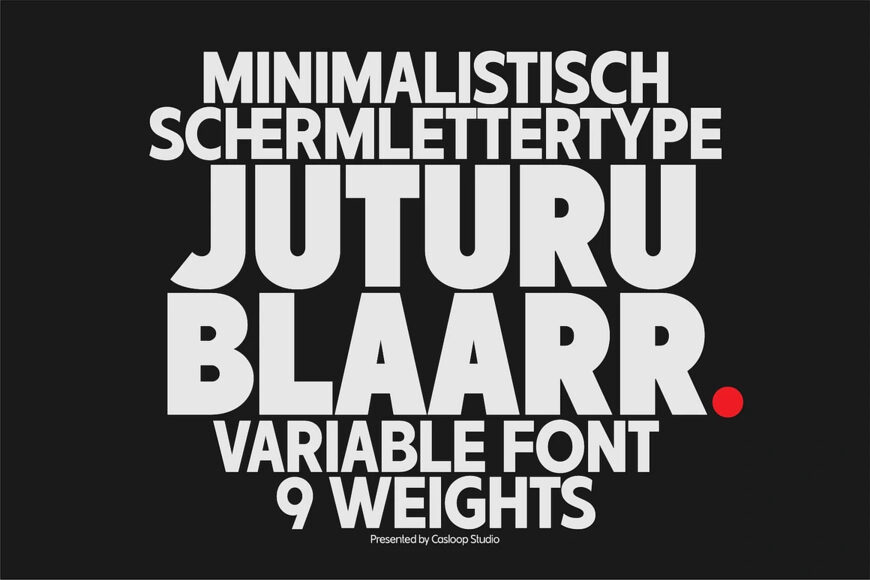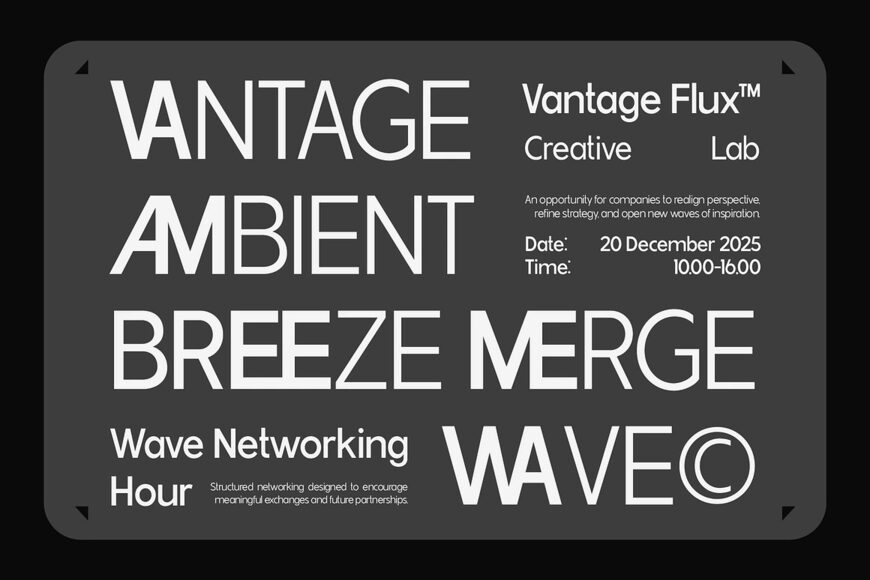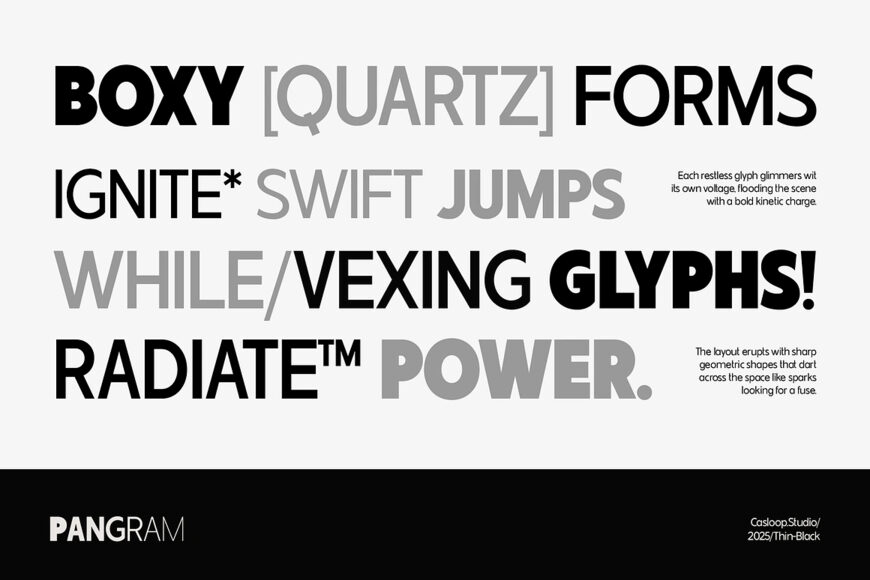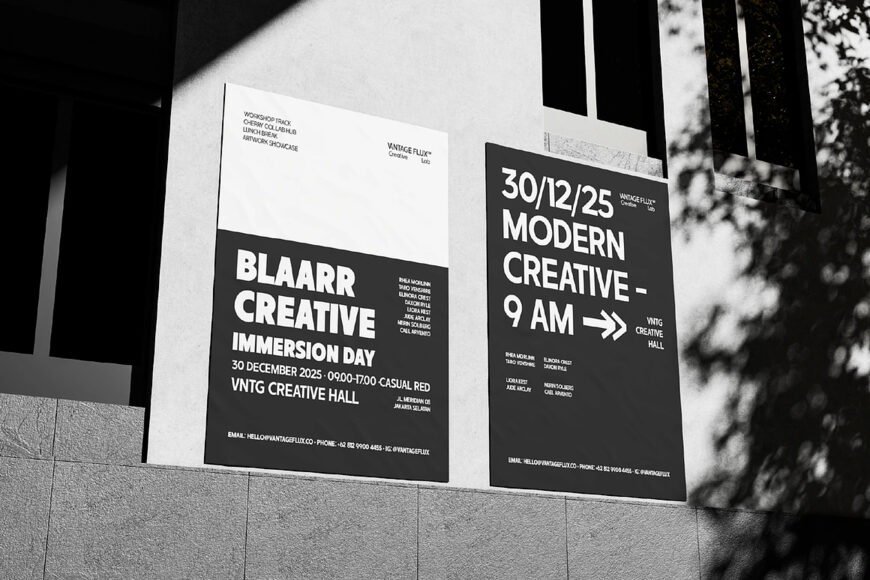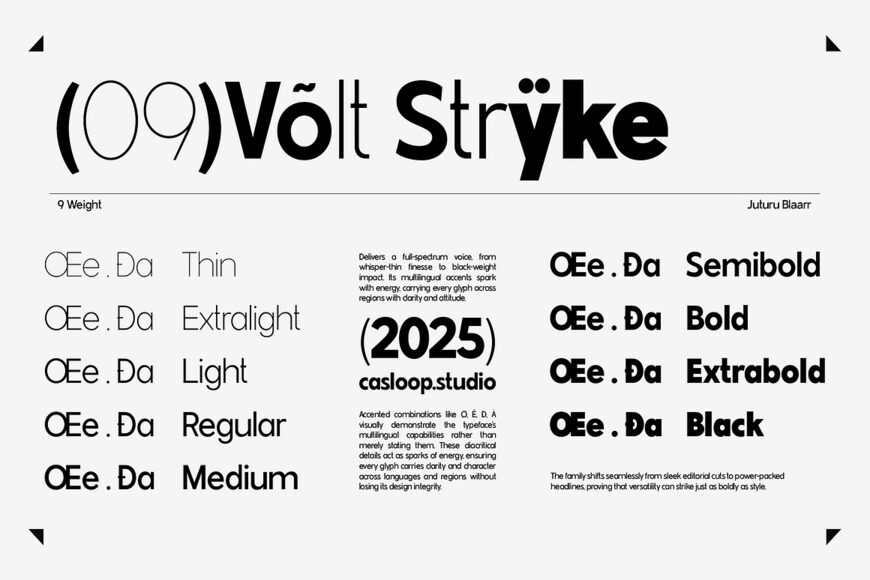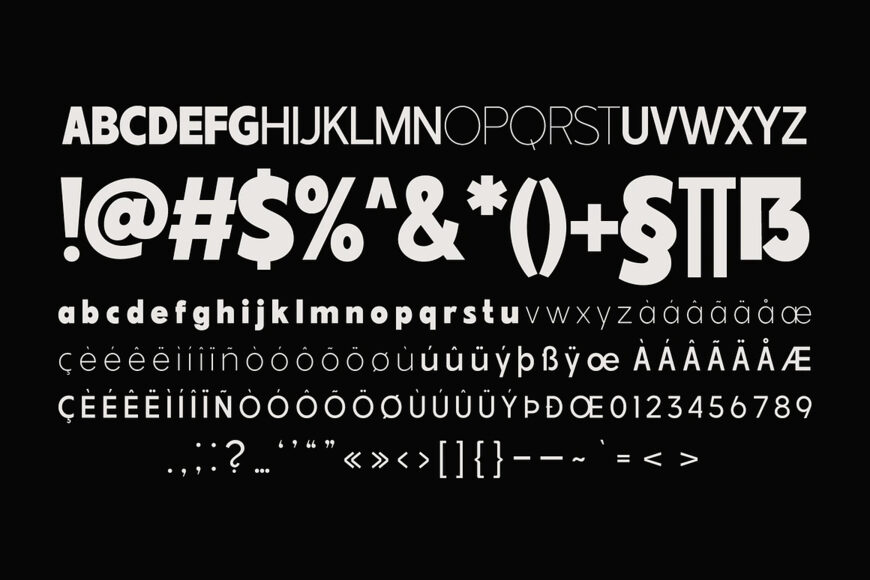
Juturu Blaarr is a minimalist sans serif typeface designed for modern logos and visual systems that value clarity, structure and confidence. With balanced proportions and a disciplined shape, its performance is consistent across scales.
Juturu Blaarr is designed to avoid the stiff, overly “mathematical” feel often found in geometric typefaces. While its forms are clean and well-structured, it carries a more human touch: softer curves, comfortable spacing, and a natural flow. As a result, it feels bold yet warm, neat but not cold, and modern without feeling empty.